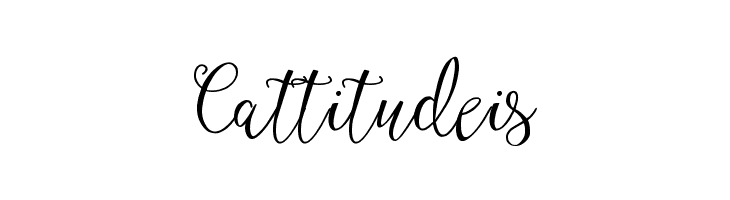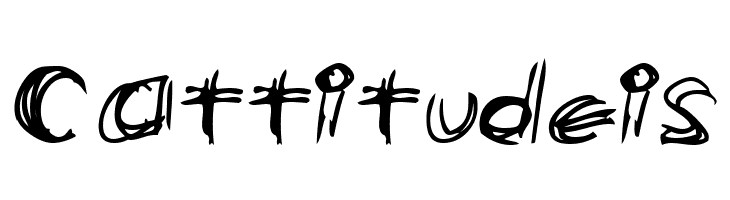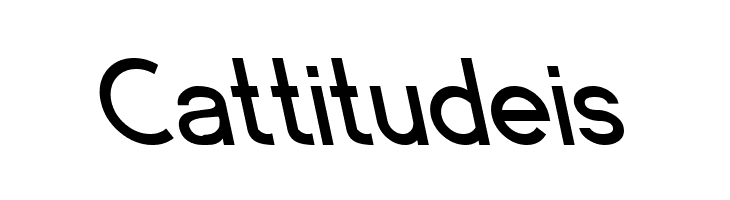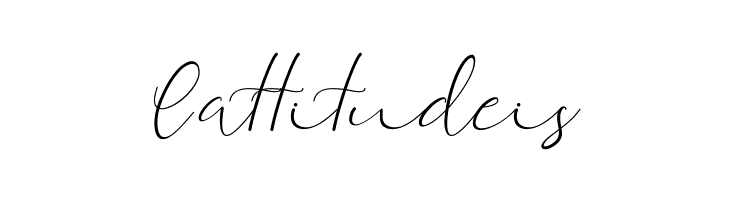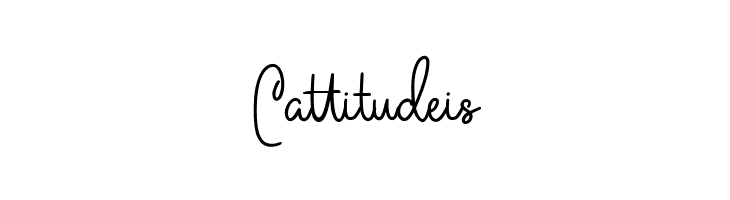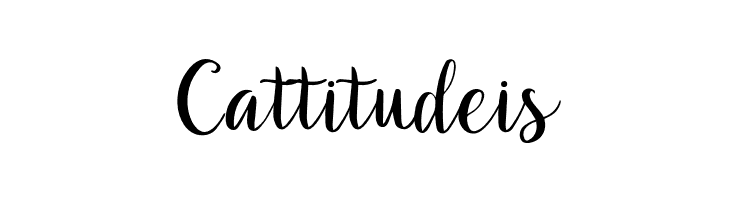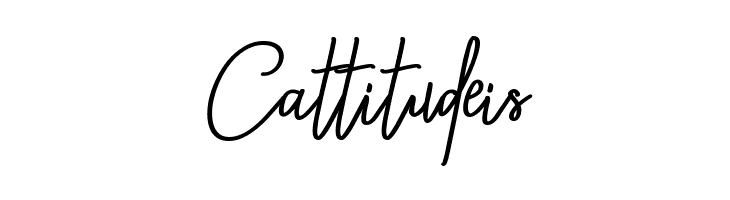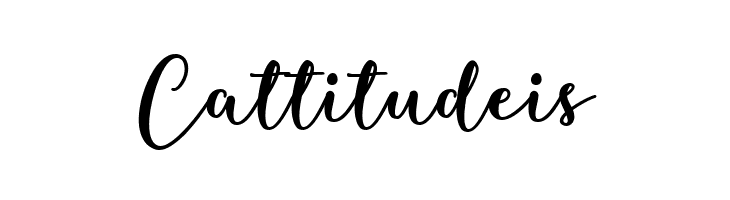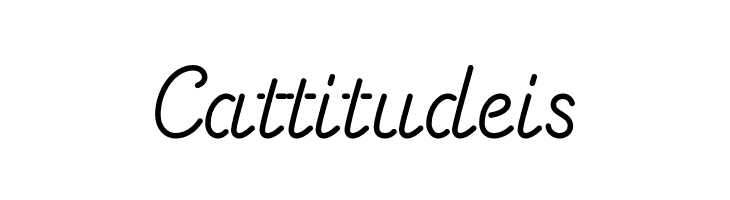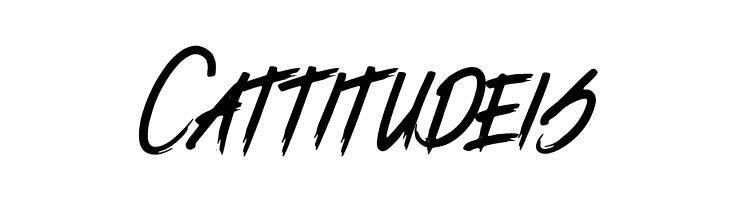
• Emiral Script Bold PERSONAL USE
A bold, expressive script font with flowing, cursive letterforms.
• Emiral Script PERSONAL USE
A bold, flowing script font with elegant curves and connected letters.
• Emitensy Script Font Regular
A flowing, cursive script font with elegant loops and swashes.
• en simple script Regular
A modern script font with angular, geometric lines and a structured flow.
• Encina Script 1 PERSONAL USE
An elegant and ornate script font with flowing, cursive characters and decorative flourishes.
• Encina Script 2 PERSONAL USE
An elegant script font with flowing, interconnected letters and decorative flourishes.
• Endangered
• ENDUROS - HANDBRUSH SCRIPT
A bold, hand-brushed script font with dynamic strokes and a spontaneous feel.
• Energetic Script Limited Regular
A dynamic and flowing script font with elegant, interconnected letters.
• England Hand DB
• EnglandScript
An elegant script font with flowing, interconnected letters and ornate flourishes.
• English Script
An elegant script font with intricate loops and swashes, ideal for formal designs.
• Engrossing!"
• Enya Regular
• Equalizer Script
A lively, cursive script font with fluid, connected strokes and a handwritten feel.
• EqualizerScriptDemo
A flowing, cursive script font with elegant, connected letters.
• ER Architect KOI-8
• ER Architect Mac
• Eraser
• Erisblue Script Light